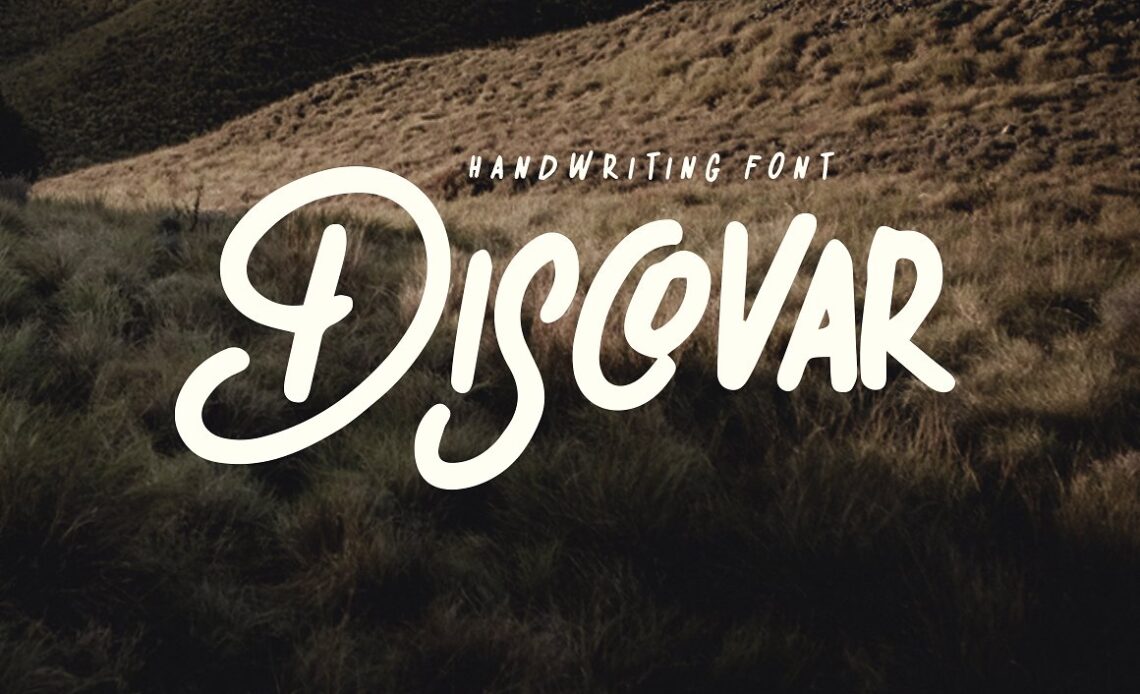
Behold, Discovar Font, the enchanting script font crafted by the skilled hands of bloomxxvi. Immerse yourself in a world of elegant curves and graceful strokes that will ignite your imagination and leave a lasting impression on your designs.
With its monoline style, Discovar Font exudes a sense of effortless beauty and charm. Its clean lines and consistent thickness create a cohesive look that is both sophisticated and playful. Whether you're designing logos, invitations, greeting cards, or any other project that demands a touch of elegance, Discovar Font is your perfect companion.
Let your creativity soar as you explore the endless possibilities that Discovar Font has to offer. Its versatility knows no bounds, allowing you to effortlessly adapt it to a wide range of design styles and themes. From whimsical and lighthearted to formal and sophisticated, Discovar Font seamlessly blends with your vision, enhancing it with a touch of artistry.
Step into a world where words come alive, where every letter dances across the page with a life of its own. Discovar Font's captivating charm will captivate your audience, drawing them into your designs and leaving them spellbound. Experience the joy of creating designs that resonate with your audience, leaving an indelible mark on their hearts and minds.
Don't miss this opportunity to elevate your design game with Discovar Font. Embrace the power of beautiful typography and let your creativity shine through. Make a statement with every word, every design, and every project you undertake. Embrace the magic of Discovar Font today and embark on a journey of creative expression like never before.